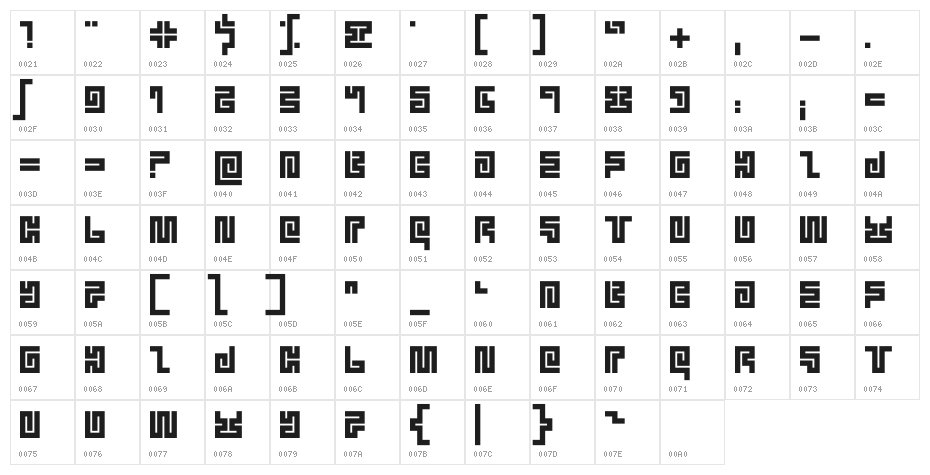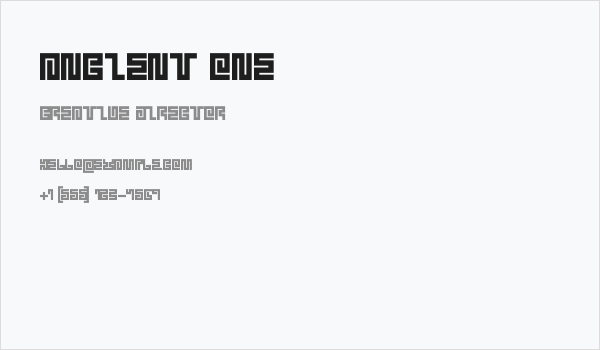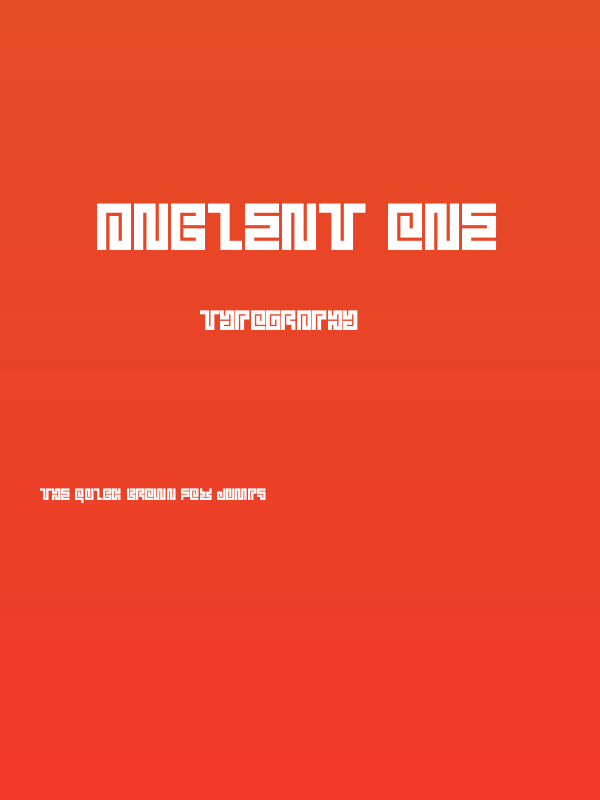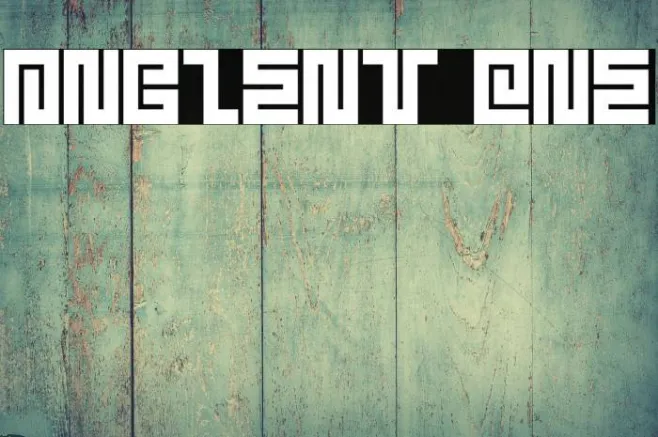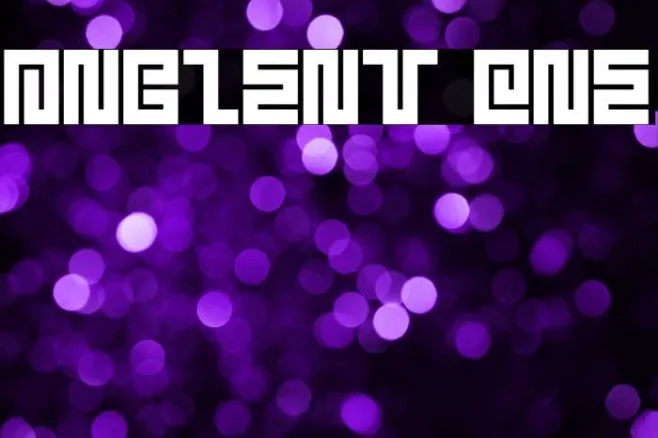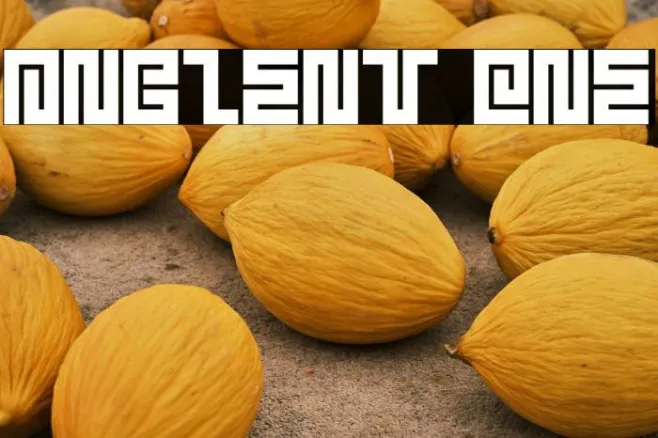
Ancient One Font
Ancient One Description
This font features a bold, geometric design with a distinctly futuristic and digital aesthetic. Each character is constructed with thick, block-like strokes that create a sense of solidity and strength. The angular shapes and sharp corners give it a modern, almost sci-fi feel, reminiscent of ancient runes or digital glyphs. The uppercase and lowercase letters share a similar structure, maintaining a consistent visual style throughout. Numbers and special characters are equally bold and geometric, ensuring a cohesive look across all elements. The font's unique style makes it stand out, ideal for projects that require a strong visual impact.
| Overall Style | Futuristic, Digital |
| Proposed Projects | Ideal for video game titles, sci-fi movie posters, technology branding, or any project needing a modern, impactful look. |